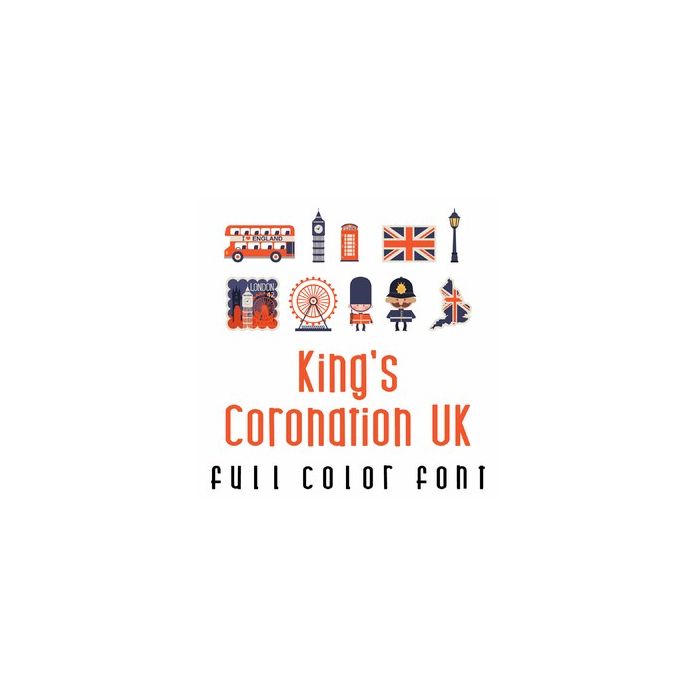
This adorable full-color doodlebat font 26 characters and elements from the United Kingdom. Perfect for parties, gifts, decor, planner stickers,scrapbook pages and more!